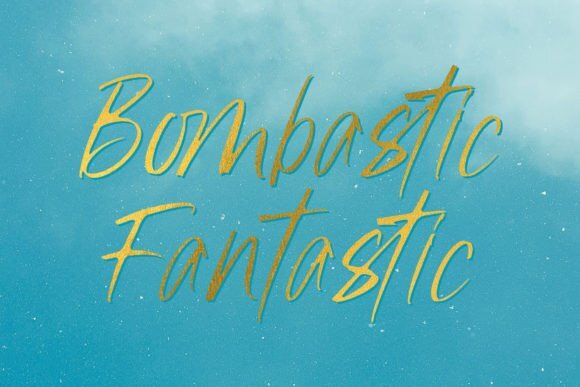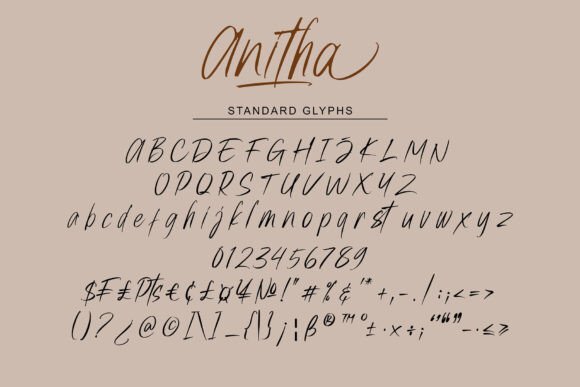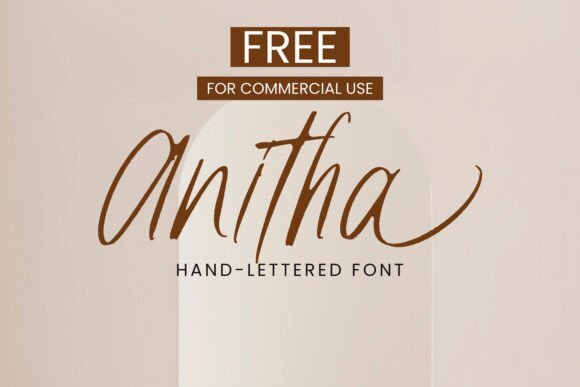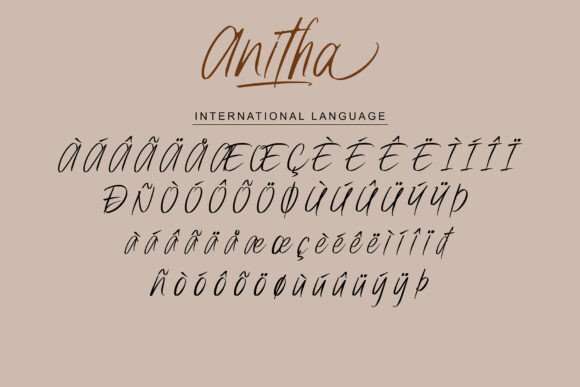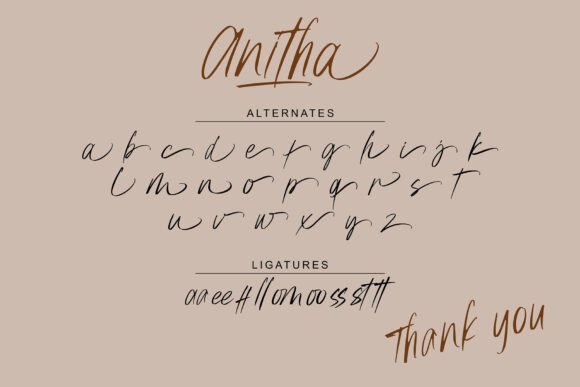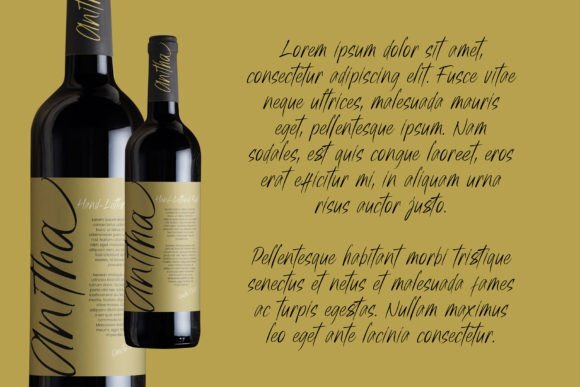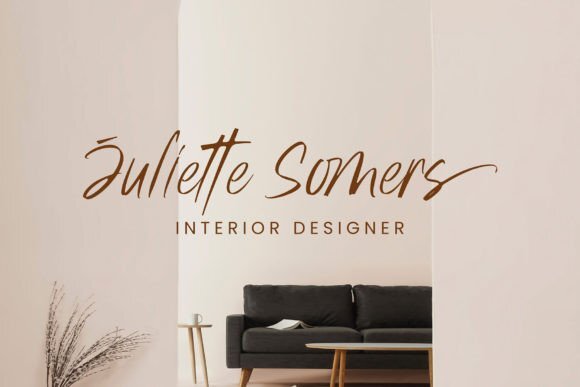
Anitha Font
Anitha is a script semi-connected and hand-lettered font. Comes with 2 styles, regular and rounded. This fonts is very suitable for your branding, whether in the form of logo text, text on social media posts, text on offline and digital advertising, apparel, product packaging, editorial features, etc.
4. Features: Uppercase, lowercase, numerals, punctuations, and ligatures